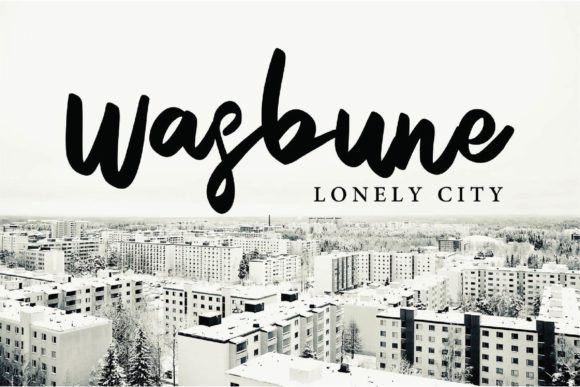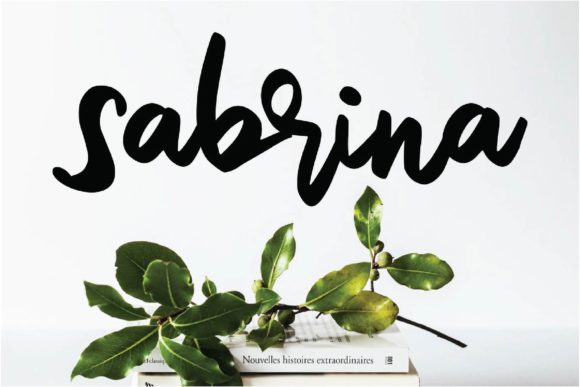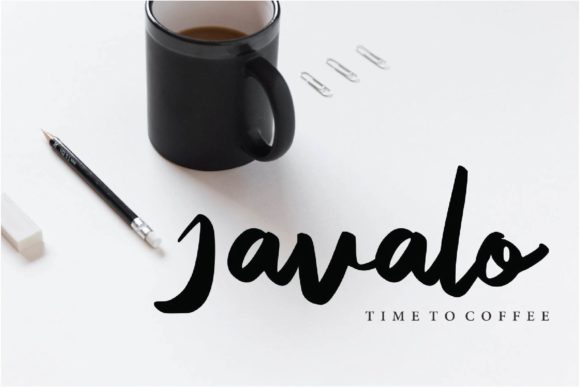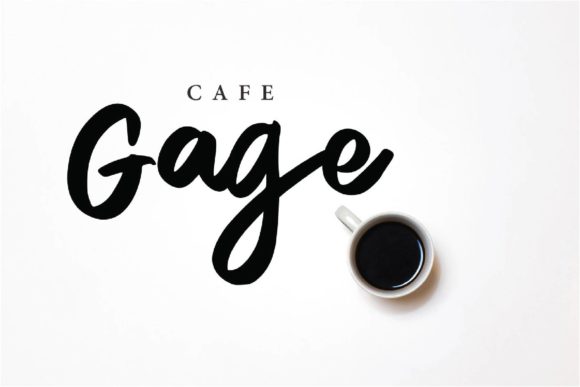
Introduction to Kavelleri Font
Kavelleri is a sweet and cool handwritten font with a sweet feel.
| 👤 Author | Ian Mikraz |
Use it to turn any design project into a true standout .
Key Features of Kavelleri Font
Why Choose Kavelleri Font?
Kavelleri Font offers exceptional quality and versatility, making it a valuable addition to your design toolkit. Whether you’re creating for personal projects or commercial use, Kavelleri Font delivers professional results.